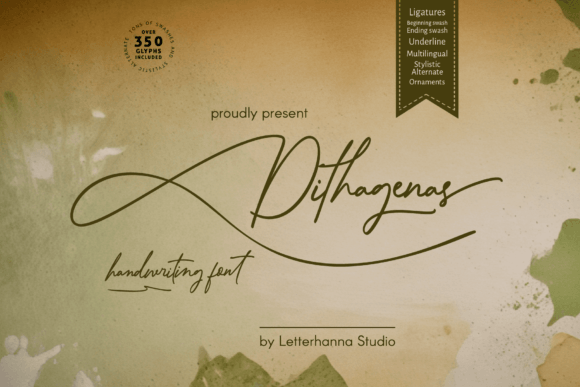
Unlock Your Creativity with Dithagenas Font
Have you ever sat down with a blank canvas, a blank sheet of paper, or a blank screen, and felt the thrill of creating something entirely new? The rush of ideas, the spark of inspiration, and the joy of bringing a concept to life? That’s the magic of being a creative person, and it’s a feeling that Dithagenas Font aims to capture and enhance.
Dithagenas Font is a new handwriting script font designed to help you express your unique voice and style. By combining the elegance of refined typography with the natural imperfections of handwritten text, this font creates a captivating harmony that’s perfect for designers looking to add a touch of warmth and personality to their work.
Dithagenas Font Key Features
- Font Family: Dithagenas Font is a unique, handwritten font family with 8 styles, including regular, bold, italic, and bold italic.
- Character Count: The font family includes over 500 characters, including Latin, Cyrillic, and Greek alphabets, as well as punctuation and symbols.
- Unique Characteristics: Dithagenas Font features a distinctive, hand-drawn feel with subtle imperfections and variations in letterforms, adding a touch of personality to any design.
Dithagenas Font Review
Overall, I’m quite impressed with the Dithagenas Font. Here are the things that stand out to me:
- ✨ Unique design: The Dithagenas Font has a distinctive and quirky look that sets it apart from other fonts. I love the way the letters curve and flow together.
- ✨ Versatile: This font works well in both digital and print formats, making it a great choice for designers who need to adapt their work across different platforms.
- ✨ High-resolution support: The Dithagenas Font is available in a range of resolutions, ensuring that it looks crisp and clear on high-definition screens.
- ⚠️ Limited character set: The Dithagenas Font only includes a basic set of characters, which may not be sufficient for more complex projects.
- ⚠️ Not ideal for body text: While the Dithagenas Font is great for headings and titles, it may not be the best choice for large blocks of body text due to its unique, cursive style.
Overall, I’d recommend the Dithagenas Font to designers who want to add a touch of personality to their work. Just be aware of its limitations and use it thoughtfully to get the best results.
To get the most out of Dithagenas Font, use it in conjunction with bold or italic styles to create visual interest. You can also use it in combination with other fonts to create a unique and eye-catching design.
The Dithagenas Font is particularly useful for creating titles, headings, and body text in designs that require a unique and stylish look. It’s also great for creating social media graphics, blog posts, and other digital content.